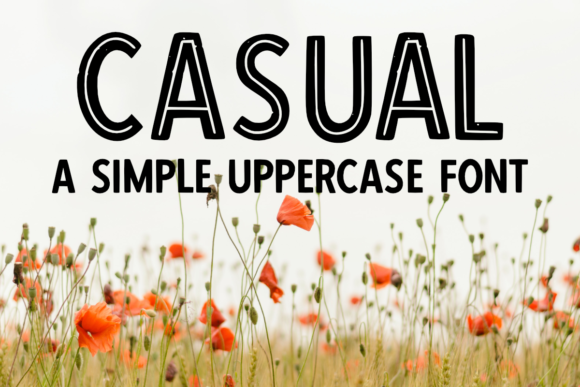
The Ultimate Casual Font Review: Elevate Your Designs with Ease
I’ll never forget the time I was working on a project for a client who needed a font that was both cool and simple. I had spent hours scouring the internet for the perfect one, but nothing seemed quite right. That was until I stumbled upon Casual, a game-changing display font that has since become a staple in my design library.
Whether you’re a designer, crafter, or creative hobbyist, Casual is an incredible asset to have in your fonts’ library. Its adaptability and versatility make it perfect for a wide range of projects, from branding and advertising to crafting and DIY tutorials.
What I Love About Casual ✨
- ✅ Its simplicity and elegance make it perfect for headlines and titles
- ✅ The font is highly legible, even at small sizes
- ✅ Casual has a wide range of OpenType features, including glyphs and stylistic alternates
- ✅ It’s incredibly versatile and can be used for a variety of projects and themes
- ⚠️ Some users may find the font a bit too plain or boring for certain projects
- ⚠️ Casual may not be the best choice for body text or long paragraphs
The Story Behind Casual: Designer Inspiration
According to its designer, Casual was inspired by the simplicity and elegance of classic typography. The goal was to create a font that was both cool and adaptable, perfect for a wide range of projects and themes. The designer wanted to create a font that would be easy to read and understand, yet still convey a sense of style and sophistication.
Q: What is the Casual font best used for?
A: Casual is best used for headlines, titles, and other design elements where a simple yet elegant font is needed.
Q: Does Casual have any special features?
A: Yes, Casual has a wide range of OpenType features, including glyphs and stylistic alternates.